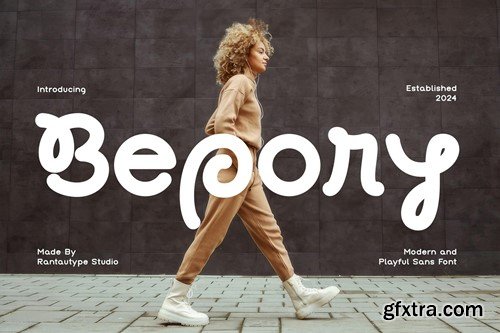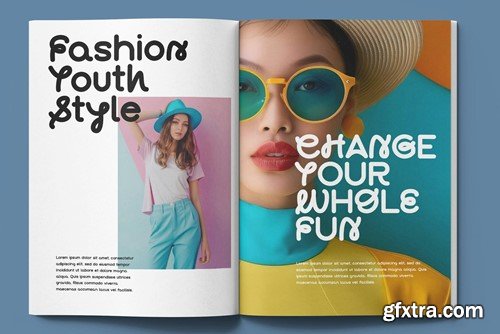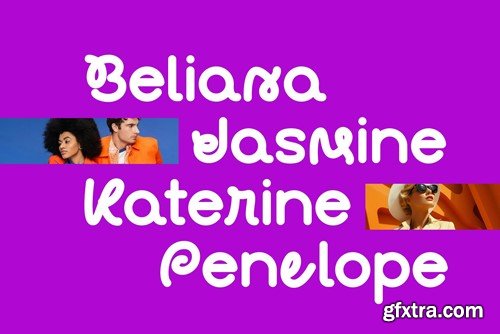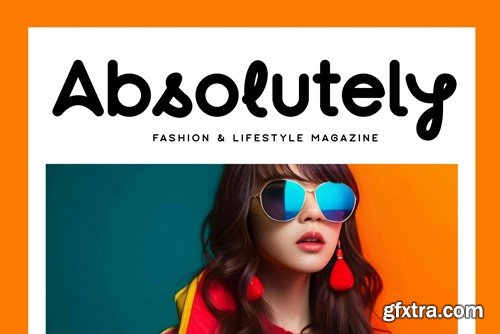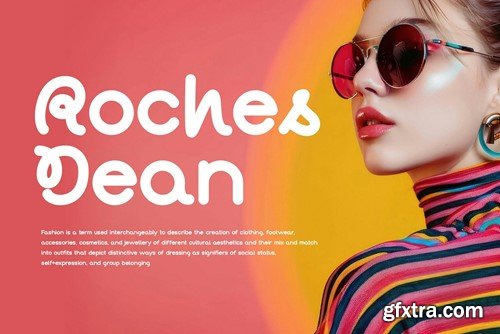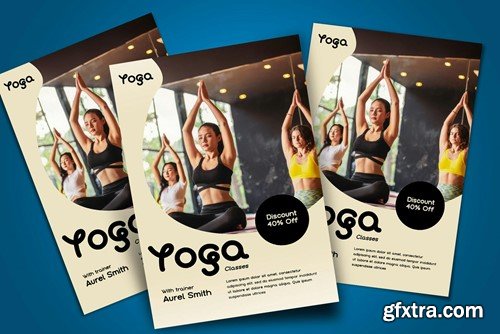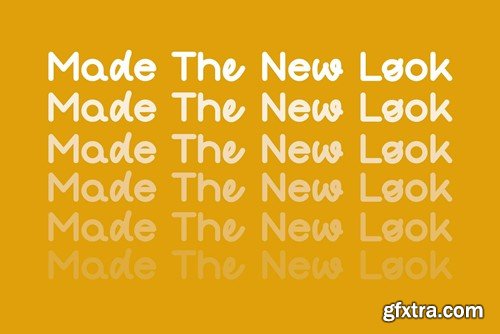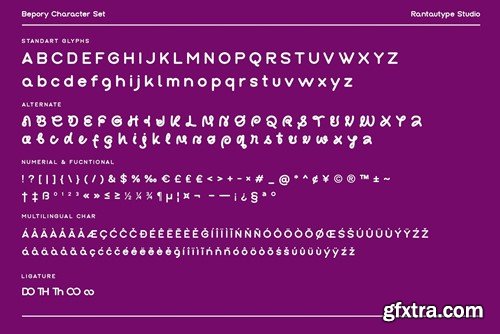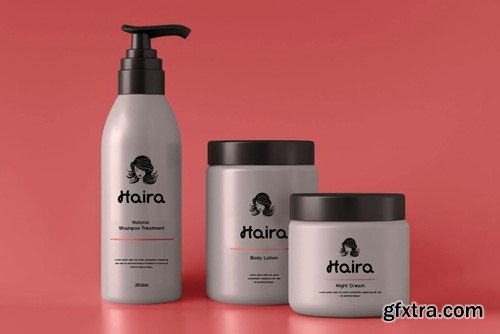
Bepory is a casual sans font with a unique character. Bepory bring a stunning of visual design with a strong and fun to create perfect combination. You can mix and match to create awesome design project more attractive. Bepory is a perfectly choice for any creative endeavor, chic, lifestyle design such as logotype, advertisements, watermark on photography, stationery, branding project, display and magazine, flyer, invitation, corporate brand, product design, label, business project and many other project with modern and fun touch. What you have: Fonts include Multilingual Character for: Afrikaans, Albanian, Asu, Basque, Bemba, Bena, Breton, Chiga, Cornish, Dutch, English, Estonian, Filipino, Finnish, Friulian, Galician, Gusii, Indonesian, Irish, Italian, Kabuverdianu, Kalenjin, Kinyarwanda, Luo, Luxembourgish, Luyia, Machame, Makhuwa-Meetto, Makonde, Malagasy, Manx, Morisyen, North, Ndebele, Nyankole, Oromo, Portuguese, Quechua, Romansh, Rombo, Rundi, Rwa, Samburu, Sango, Sangu, Scottish, Gaelic, Sena, Shambala, Shona, Soga, Somali, Spanish, Swahili, Swedish, Swiss, German. Thank you for your purchase! Hope you enjoy with our font!